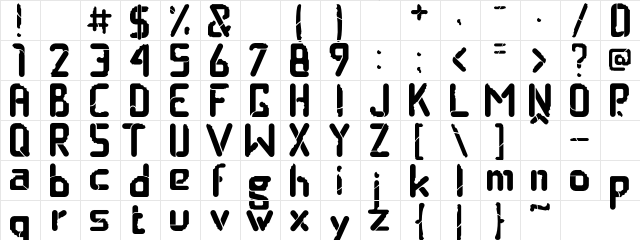
Taste Of Tradition Regular
| Designer | Richard Christopher Ponto |
Design Context for Taste Of Tradition Typeface
Taste Of Tradition is a composed and adaptable typeface that performs quietly and consistently across a wide range of design contexts.